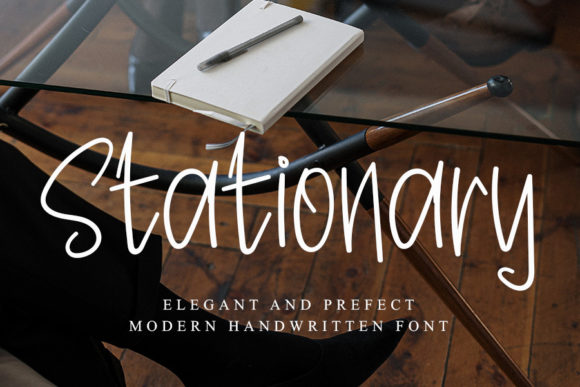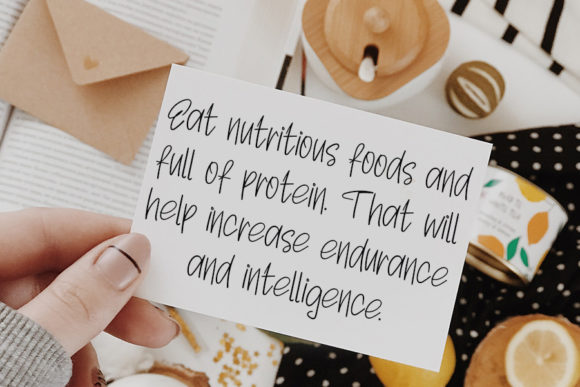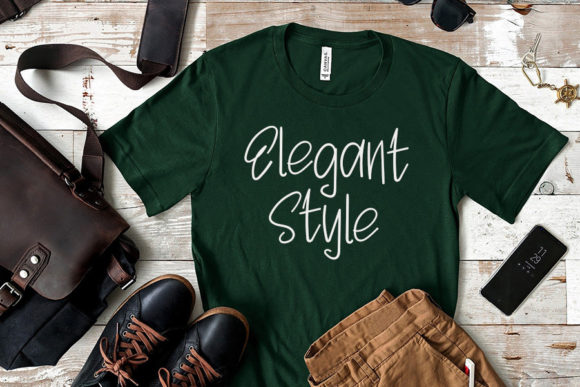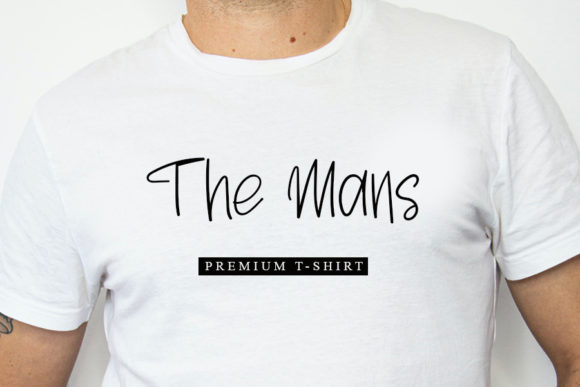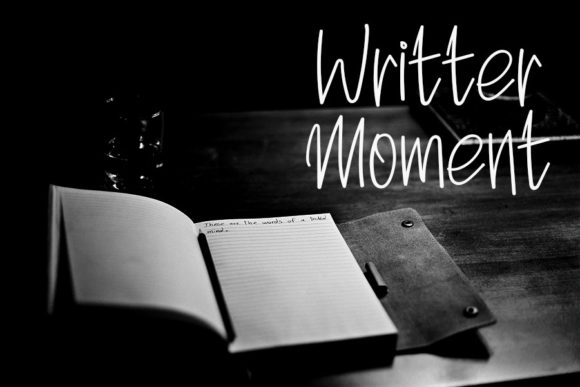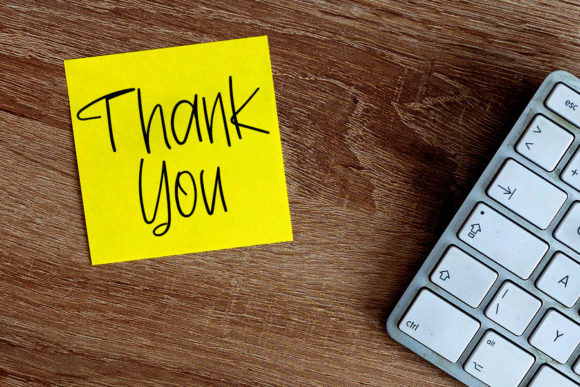
Stationary Font
About Stationary Font
Stationary is a cute and charming handwritten font. Not too thin and not too thick, balanced and varied, this font was designed to enhance the beauty of your projects.